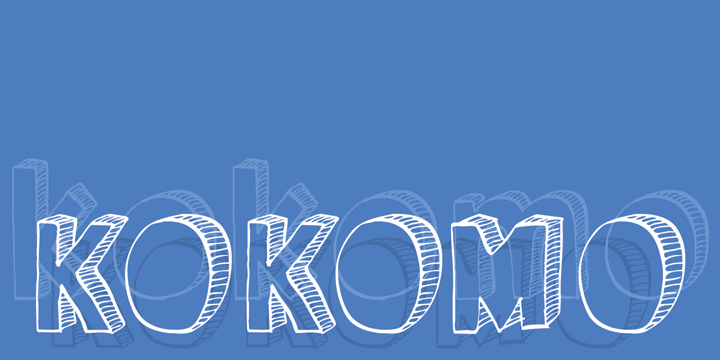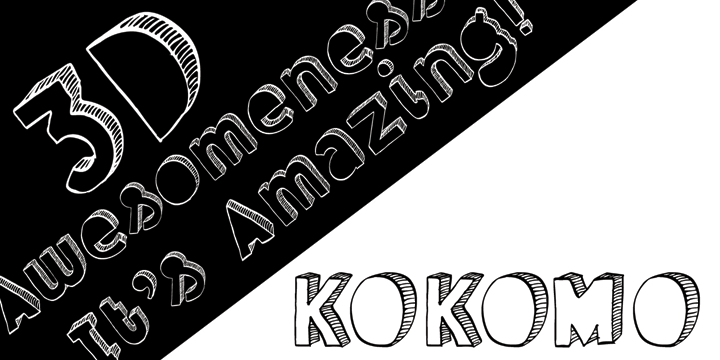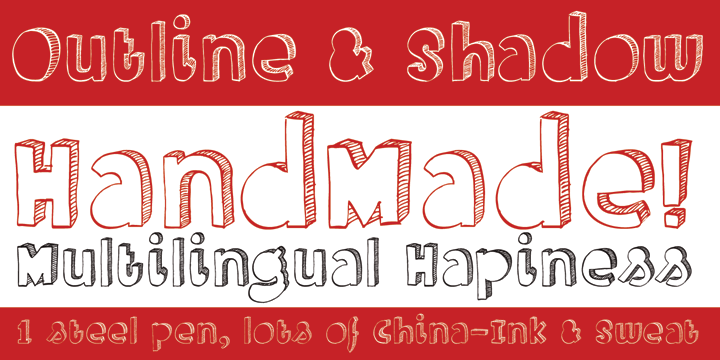
Kokomo
Kokomo is a beautiful handmade contoured font - which was drawn with an old-fashioned steel pen and Chinese ink. The open, shadowed letters are great for posters and ads. Kokomo comes with extensive language support and has an alternative lower case a, for those who don't like the one I used.